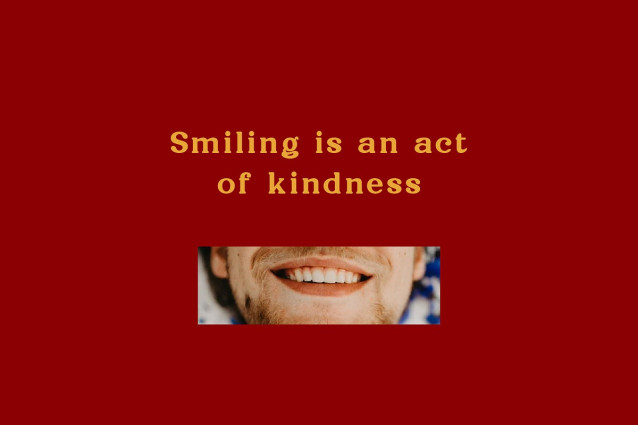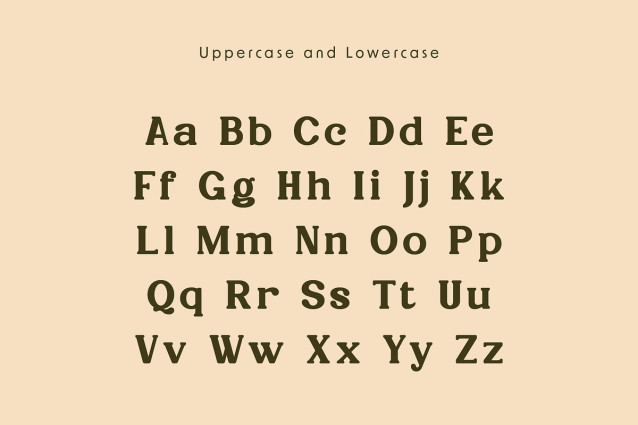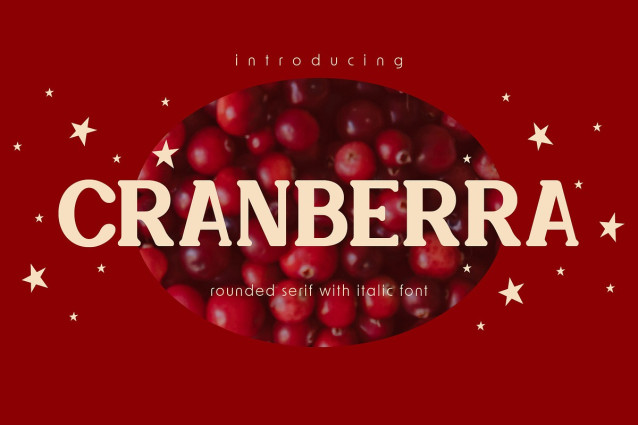
Cranberra Font
Cranberra Font is the really nice font for those who want to make a statement without being too flashy. Its rounded and modern aesthetic make it a great choice for logos, headlines, and body text alike. With its features, you can easily create a cohesive look for your brand or project. Plus, its simplicity makes it easy to read and comprehend, so you can be sure your message is getting across loud and clear.